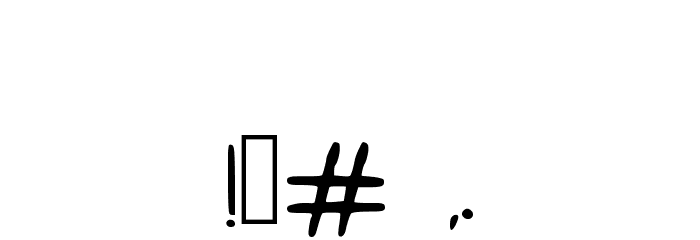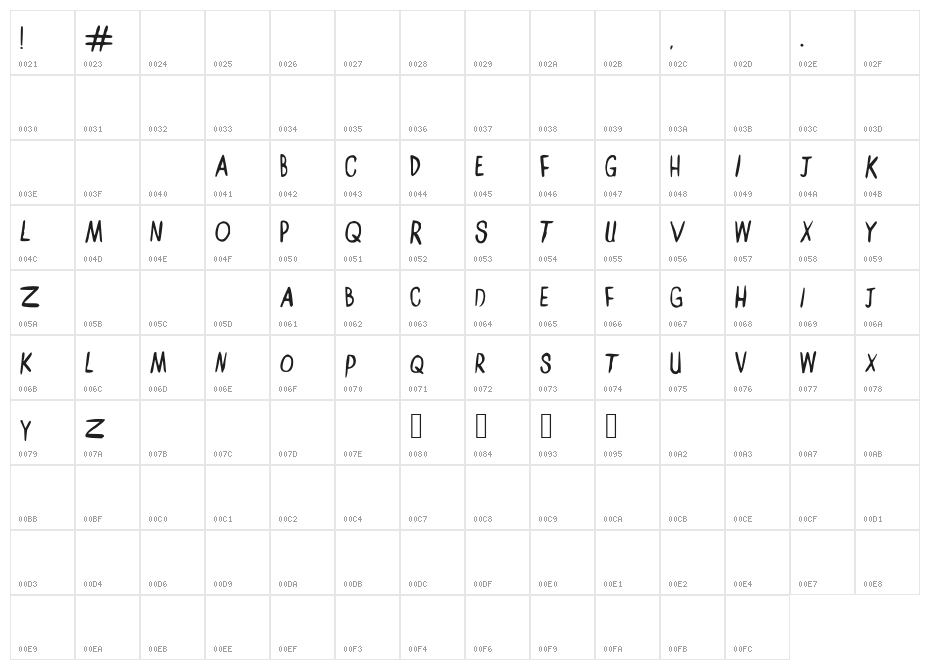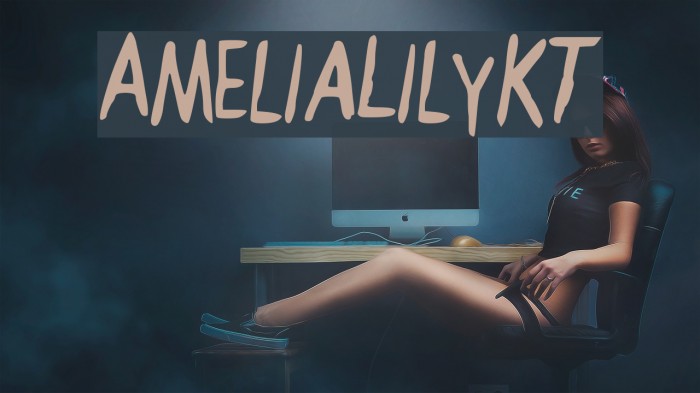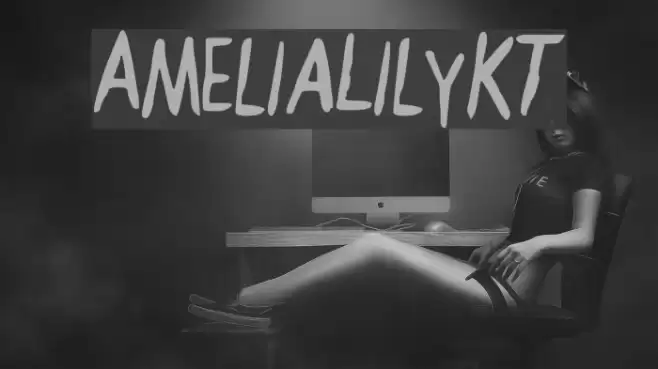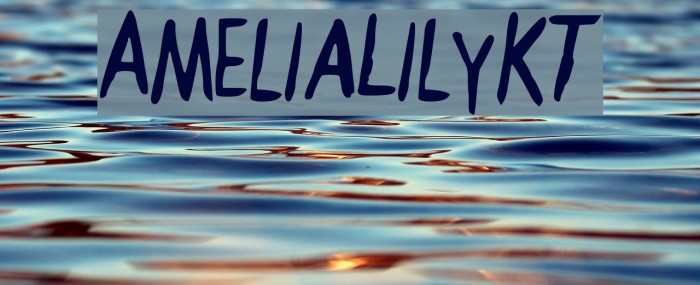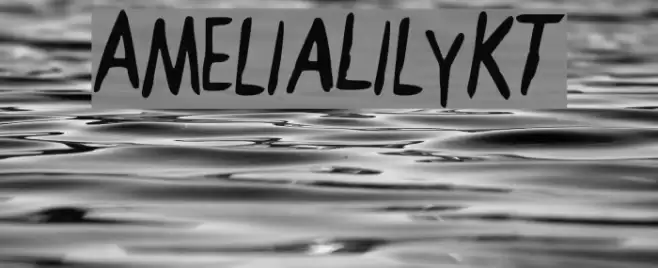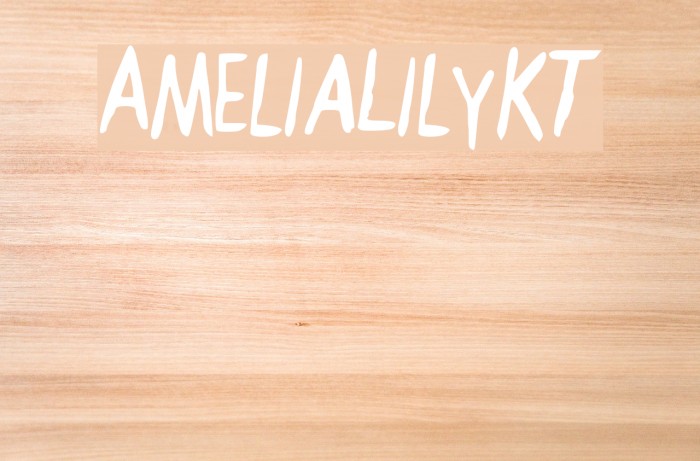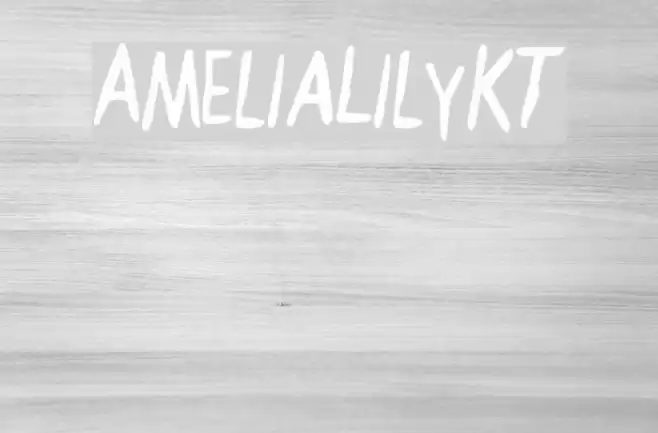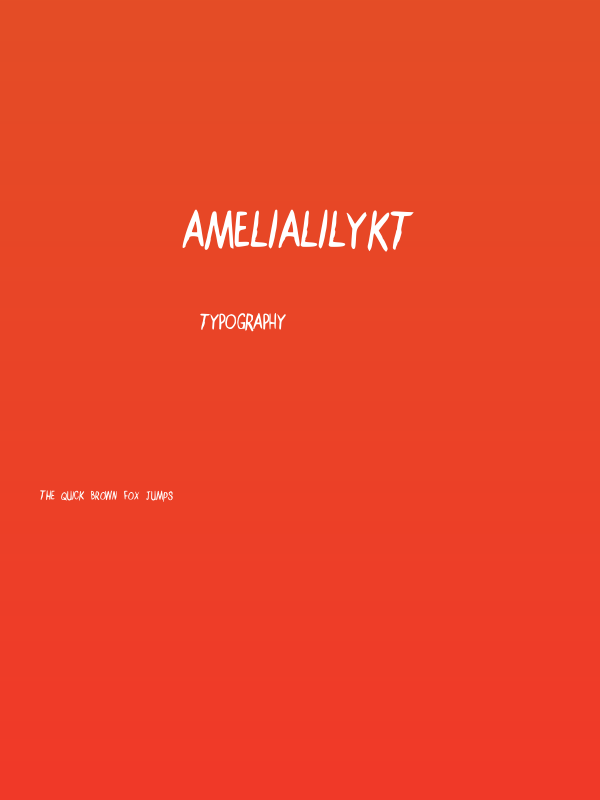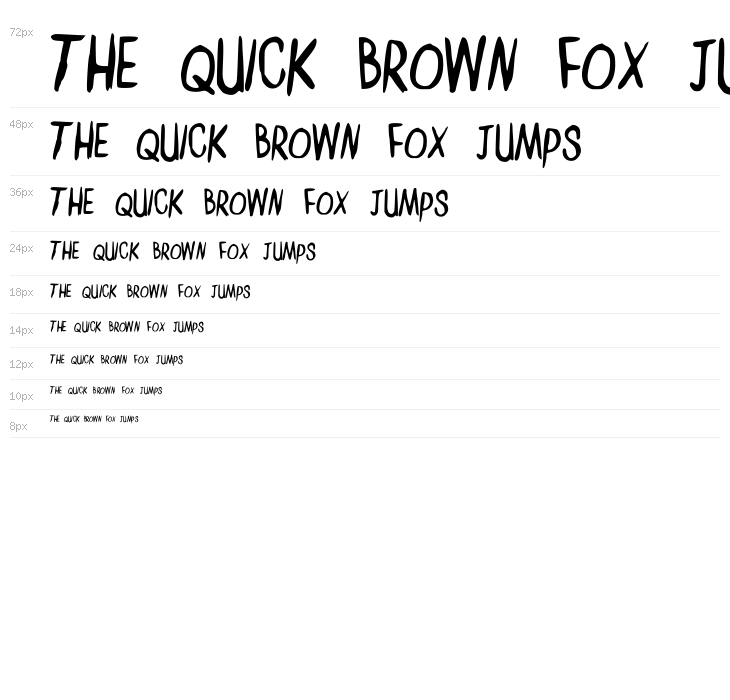
AmeliaLilyKT Font
AmeliaLilyKT Description
This font features a playful and dynamic handwritten style, characterized by its irregular strokes and slightly tilted letters. The uppercase and lowercase letters maintain a consistent flow, giving a casual yet artistic appearance. The characters have a lively bounce, with varying stroke thickness that adds to the font's energetic feel. The special characters retain the same whimsical quality, making this font suitable for creative and informal projects. Its unique style can capture attention while conveying a sense of fun and spontaneity.
| Proposed Projects | Ideal for greeting cards, children's books, playful branding, and social media graphics. |